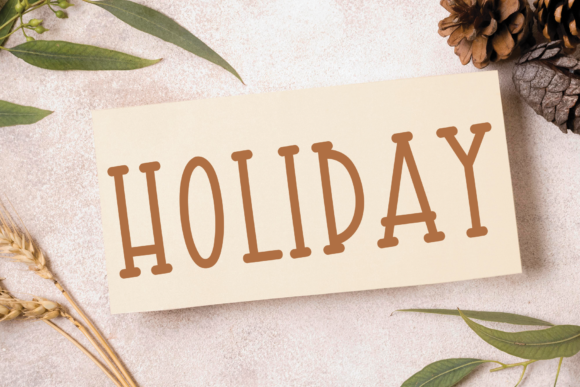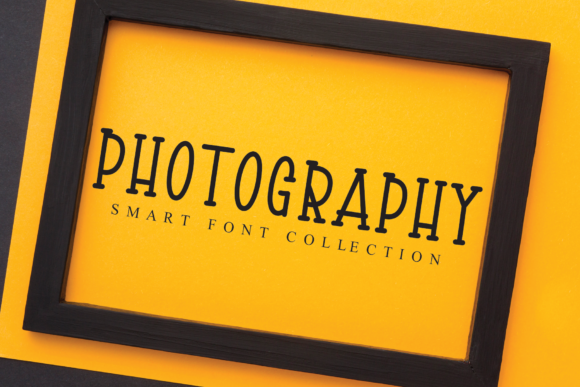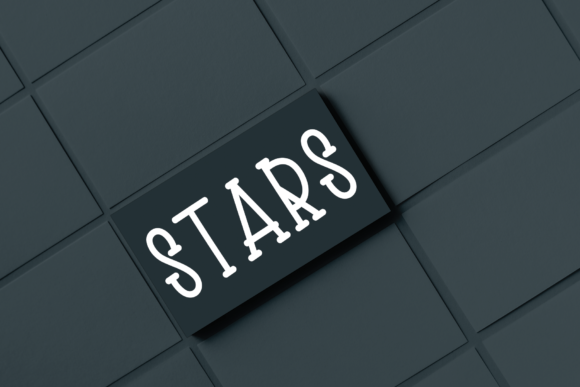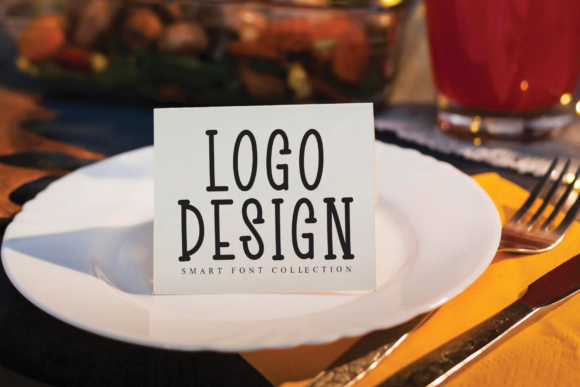
The Easter Font: A Quirky and Sweet Display Font for Your Creative Projects
I still remember the time I was working on a project for a children’s game, and I was struggling to find the perfect font that would bring the characters to life. The client wanted something quirky, sweet, and playful, but I just couldn’t seem to find the right fit. That’s when I stumbled upon the Easter font, and it was love at first sight! 🎉 In this article, I’ll share my experience with this amazing font, its features, and how to use it in various design platforms.
An Honest Review of Easter Font
The Easter font is an incredibly quirky and sweet display font that’s perfect for cartoon-related designs, children’s games, or any creation that requires a lovely touch. Here’s what I love about it:
- ✨ Unique and playful character designs that add a touch of whimsy to any project
- 💕 Supports OpenType features, glyphs, and stylistic alternates for added versatility
- 🎉 Perfect for titles, headings, and short paragraphs
While the Easter font is amazing, it’s not without its quirks. Here are a few things to keep in mind:
- 🤔 May not be suitable for body text or long paragraphs, as it can be a bit too playful
- ⚠️ Limited support for non-English characters
The Designer Inspiration Behind Easter Font
The Easter font was designed by a talented typographer who wanted to create a font that would bring joy and whimsy to design projects. Inspired by traditional Easter-themed decorations and children’s book illustrations, the designer crafted a font that’s both playful and elegant.
| Font Name | Easter Font |
| What is the Easter font best used for? | The Easter font is best used for cartoon-related designs, children’s games, titles, headings, and short paragraphs. |
| Is the Easter font suitable for body text? | No, the Easter font is not suitable for body text or long paragraphs, as it can be a bit too playful. |
| Does the Easter font support OpenType features? | Yes, the Easter font supports OpenType features, glyphs, and stylistic alternates. |